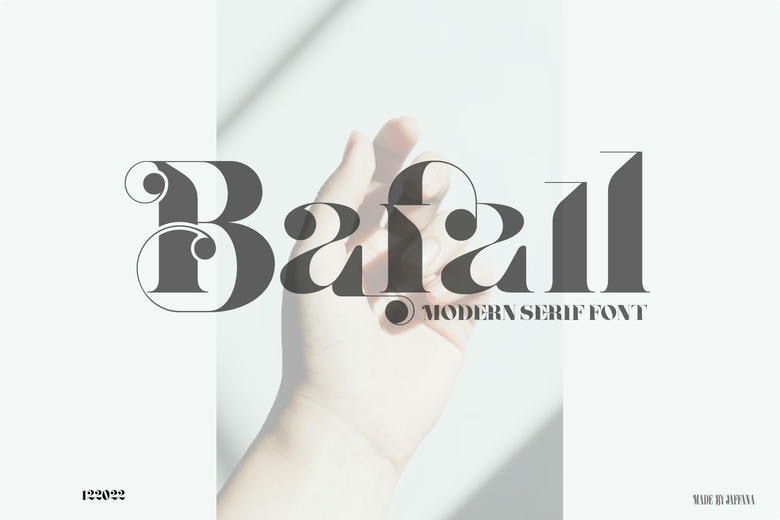
Bafall Font
Bafall is a lightweight and modern serif font that is fun. It is ideal to crafters and graphic artists, and it is excellent to creative projects, inspiring cover posters, or to communicate your brand.
Bafall Serif Font